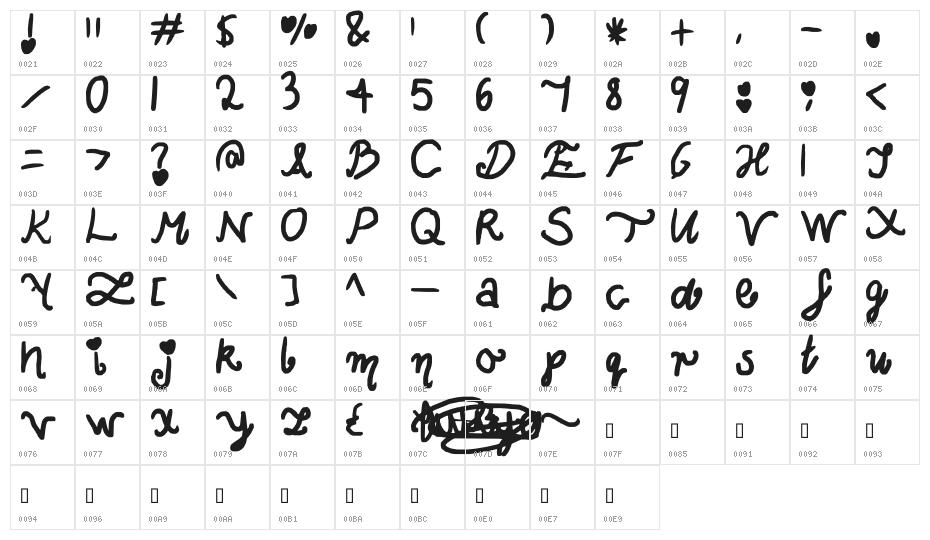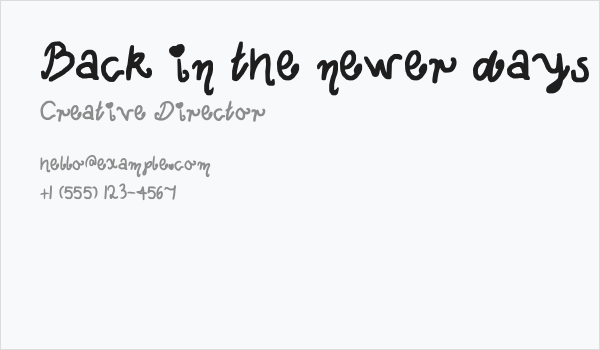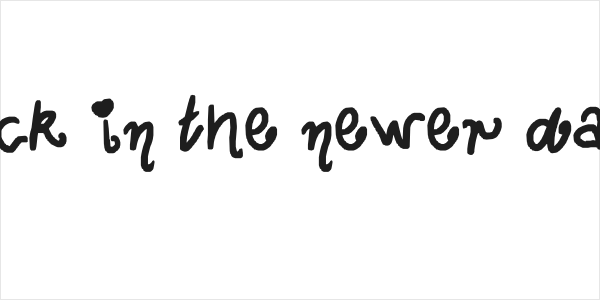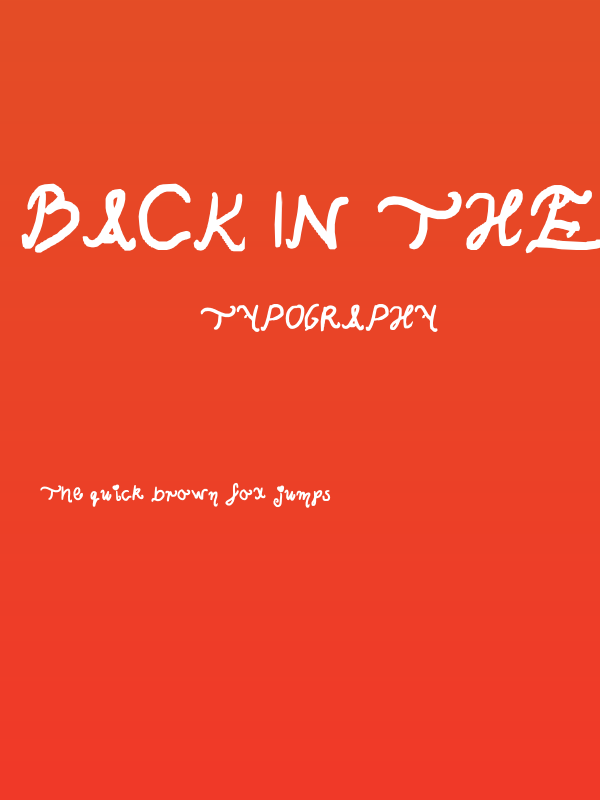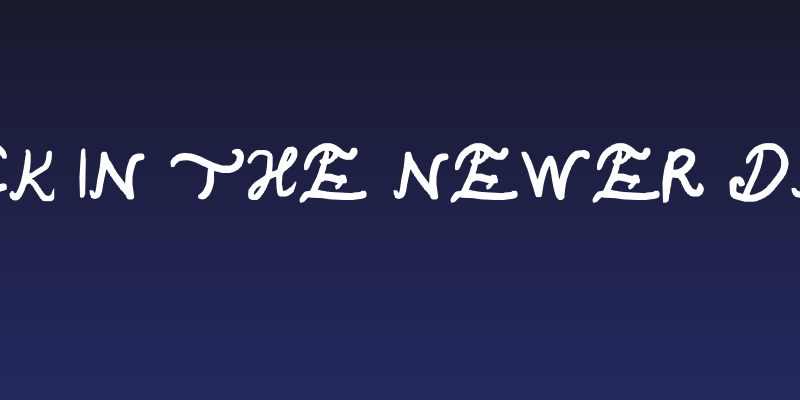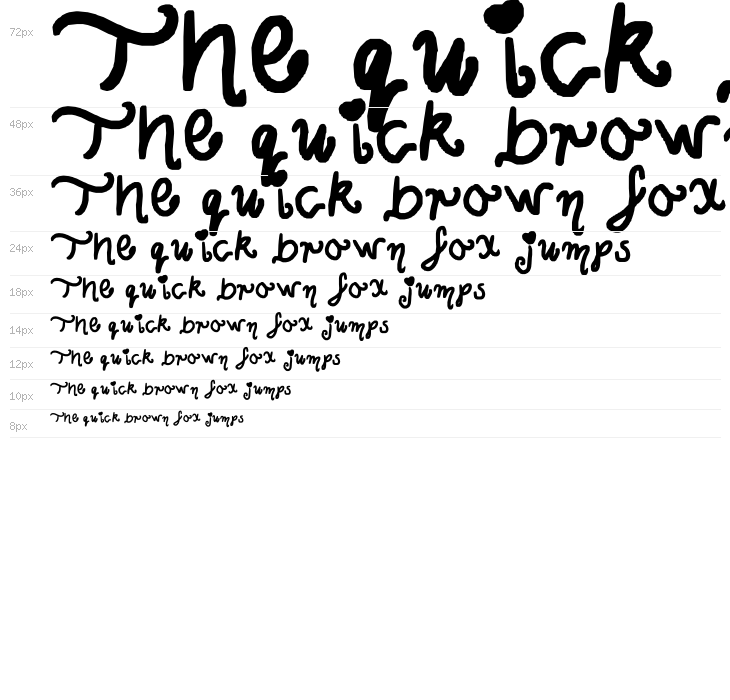
Back in the newer days Font
Back in the newer days Description
This playful and whimsical font features a handwritten style with a unique flair. Each letter is crafted with a sense of movement and personality, making it stand out with its bold and expressive strokes. The uppercase letters are slightly larger and more pronounced, while the lowercase letters maintain a consistent flow, adding to the font's charm. The numbers and special characters are equally dynamic, with a playful touch that complements the overall design. The font's irregular shapes and varied line thickness give it a lively and energetic feel, perfect for creative projects.